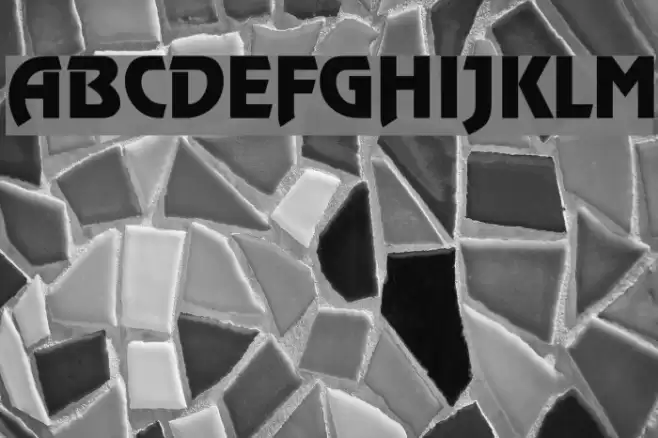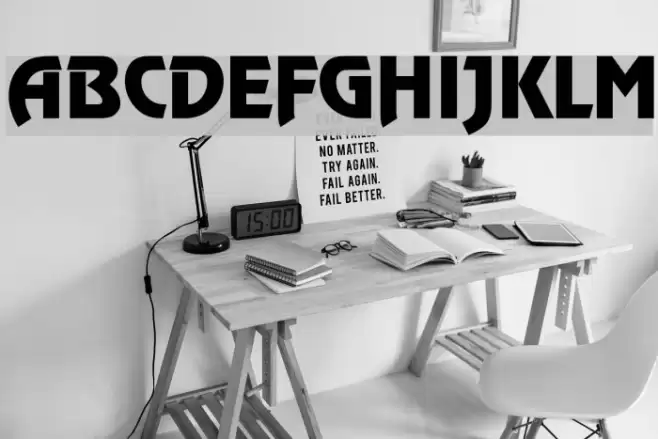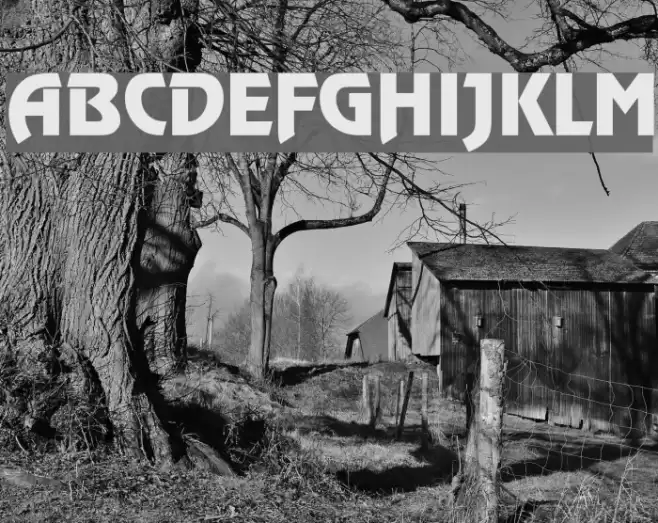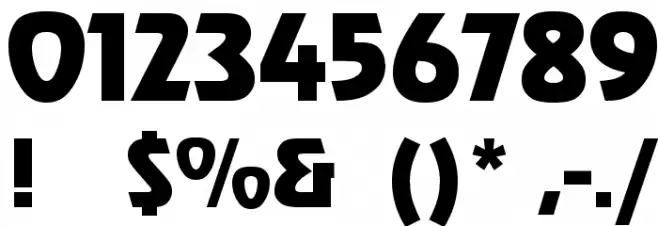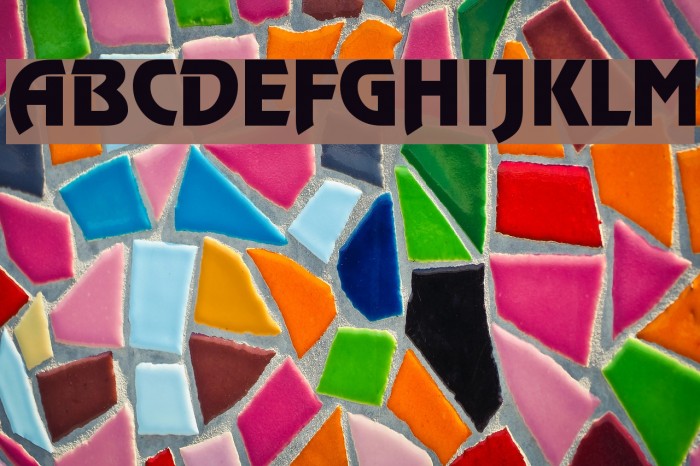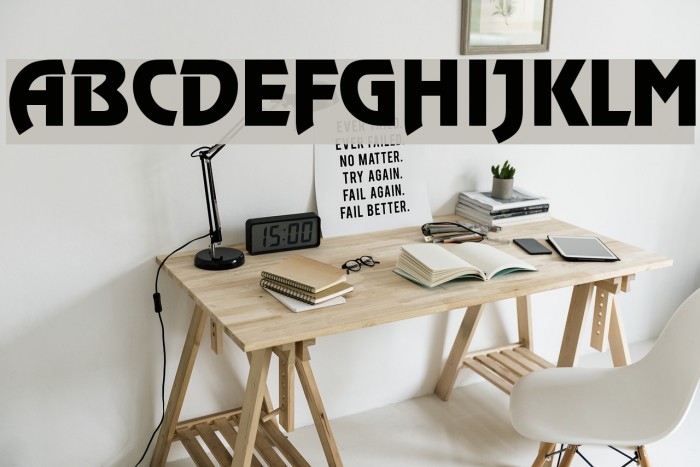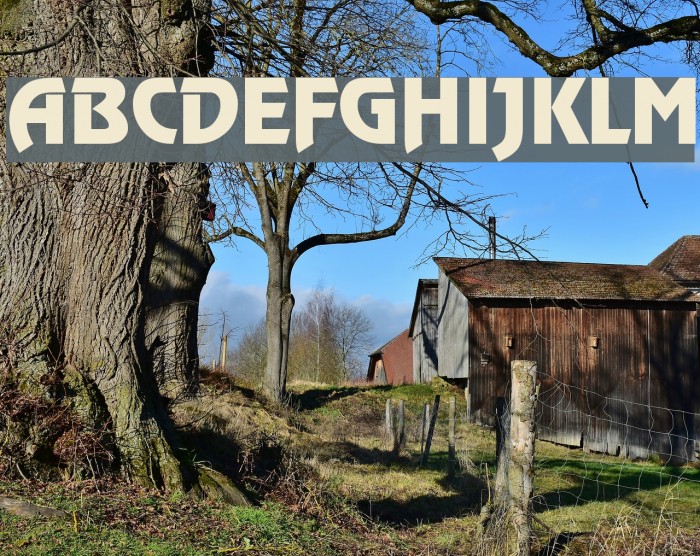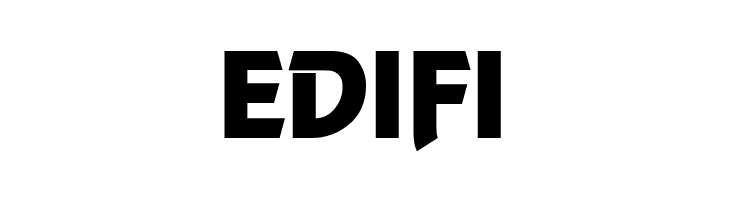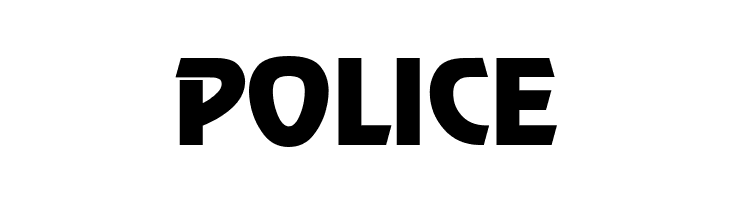
Revue Font
Revue Description
This font features a bold and dynamic style with a strong geometric influence. The characters are thick and robust, with a slight slant that adds a sense of movement and energy. The uppercase letters are particularly striking, with angular cuts and a modern aesthetic. The lowercase letters maintain the same boldness, ensuring consistency across the typeface. Numbers and special characters are equally bold, making them stand out effectively. The overall design is clean and impactful, suitable for making a strong visual statement.
A bold, geometric font with a dynamic and modern style from Decorative fonts.